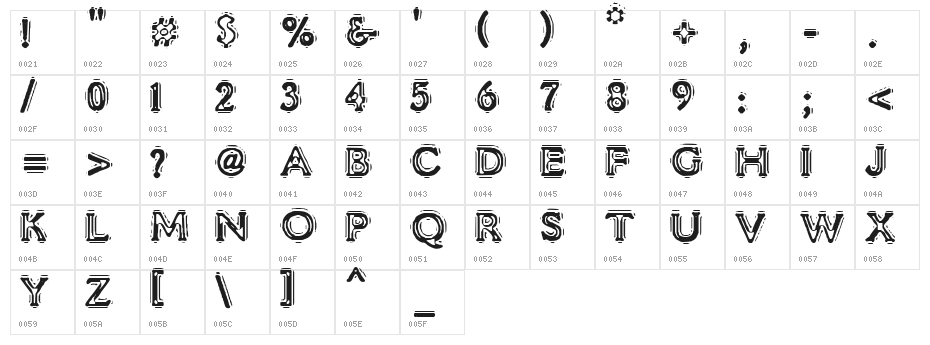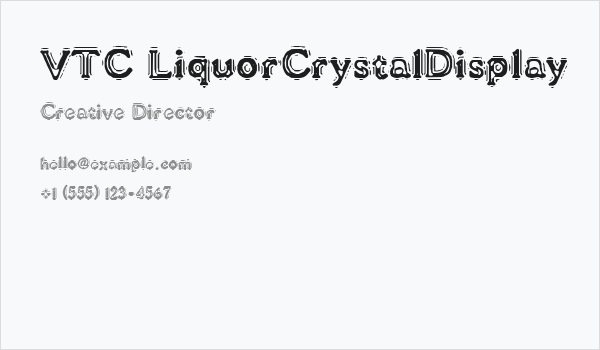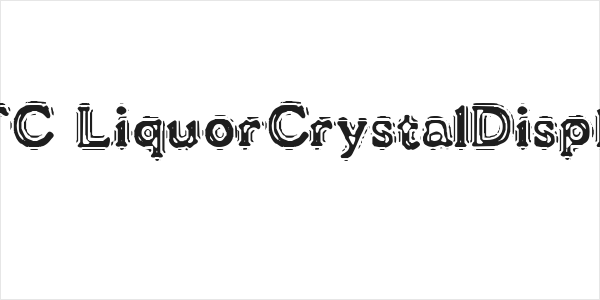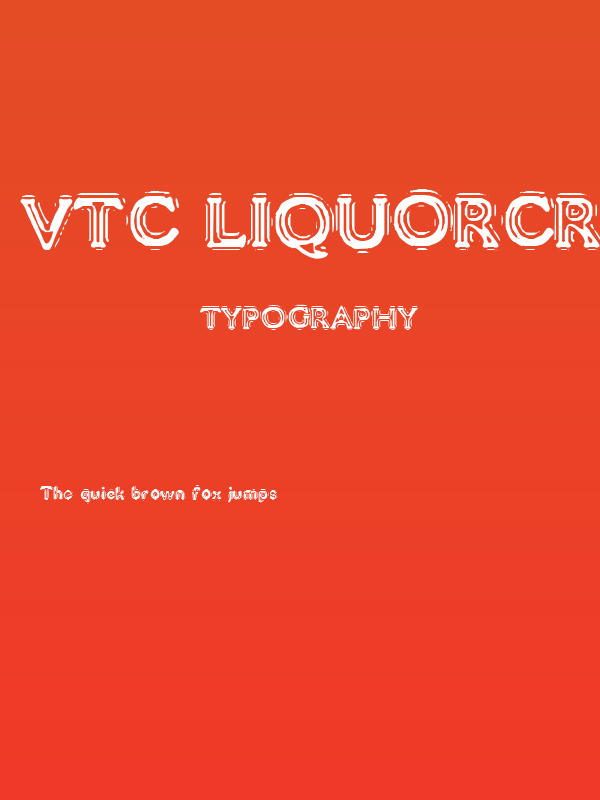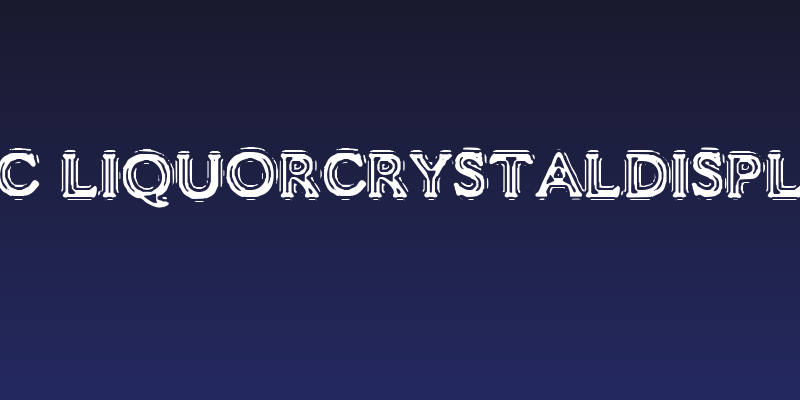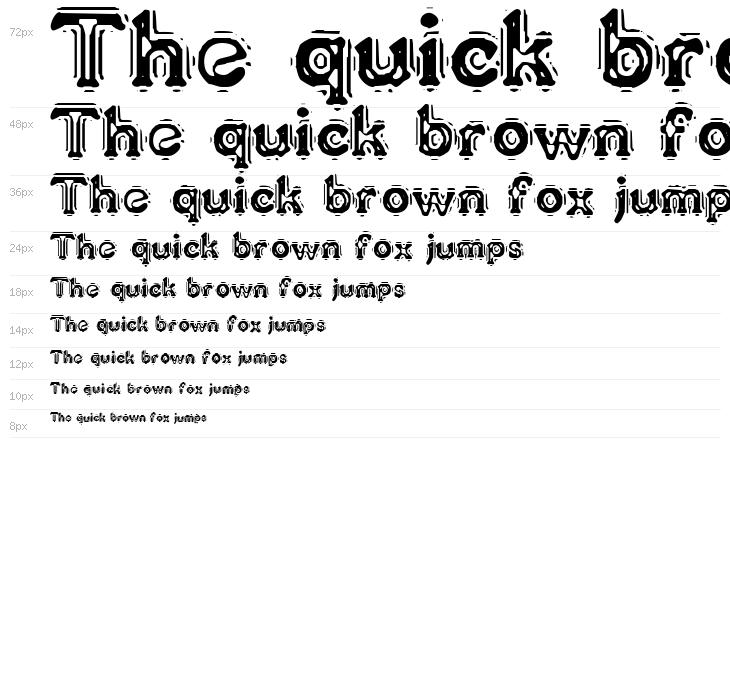
VTC LiquorCrystalDisplay Font
VTC LiquorCrystalDisplay Description
This font features a bold and decorative style with a unique, layered appearance that creates a three-dimensional effect. The characters are outlined with a thick, black border and filled with a white interior, giving them a striking and eye-catching look. The uppercase and lowercase letters maintain a consistent design, with sharp angles and a geometric influence. The numbers and special characters follow the same stylistic approach, ensuring uniformity across all glyphs. This font's distinct appearance makes it ideal for projects that require a bold statement or a vintage flair.
| Proposed Projects | Ideal for vintage-themed posters, eye-catching headlines, or branding that requires a bold statement. |